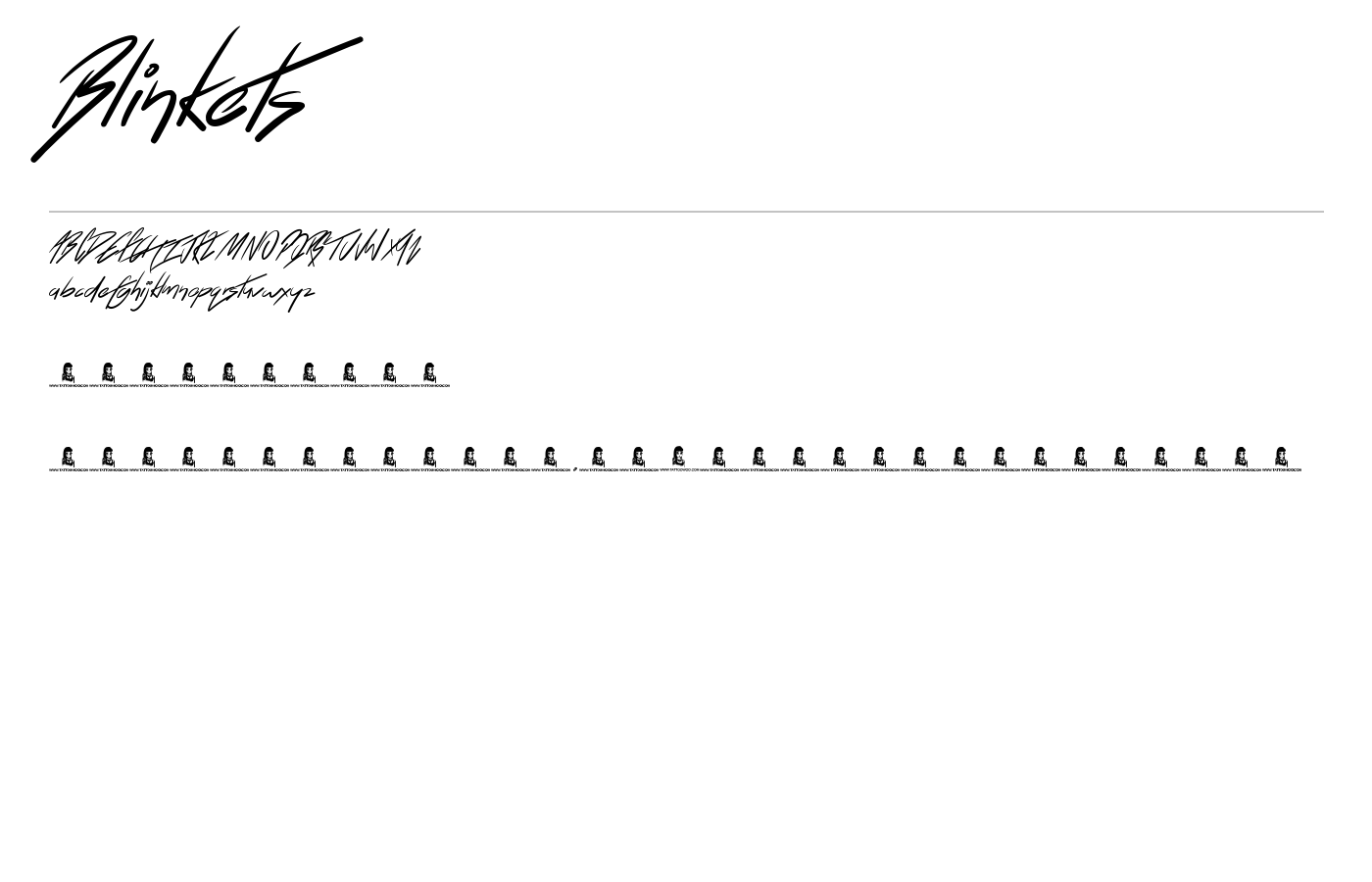
Blinkets is a dynamic, hand-drawn script font characterized by its sharp, energetic strokes and narrow, condensed letterforms. With its distinctively irregular and spontaneous style, it conveys a lively, creative spirit perfect for expressive branding, logos, and modern editorial designs that need a bold, personal touch. This font works well where a striking, informal vibe is desired, making it ideal for artistic and fashion-forward projects.
Blinkets Font
About Blinkets Font
| Font family | Blinkets Font |
| Designer | Jonathan S. Harris |